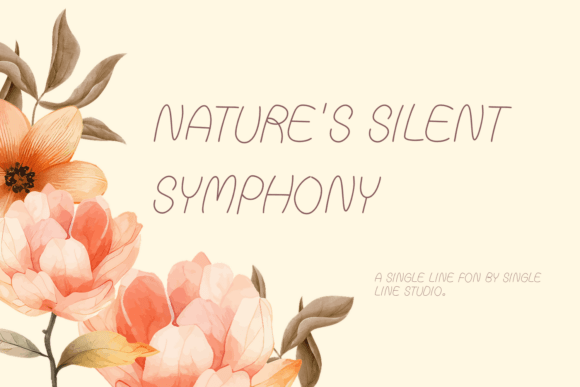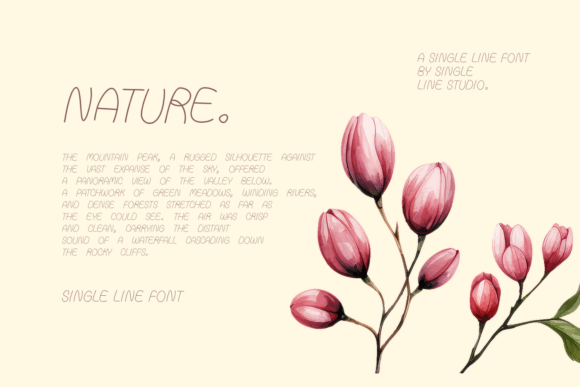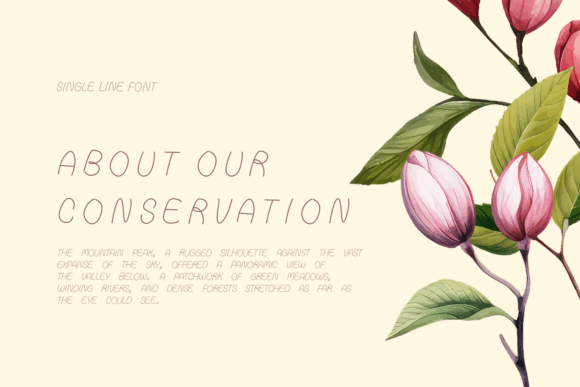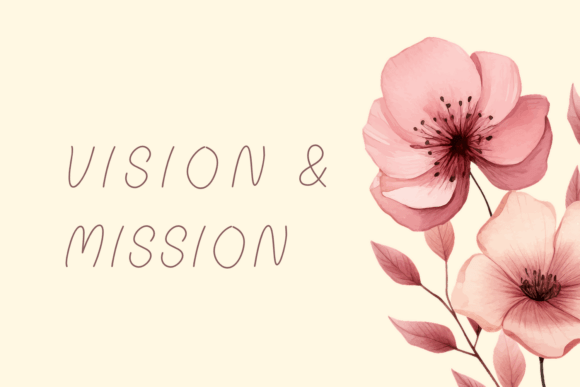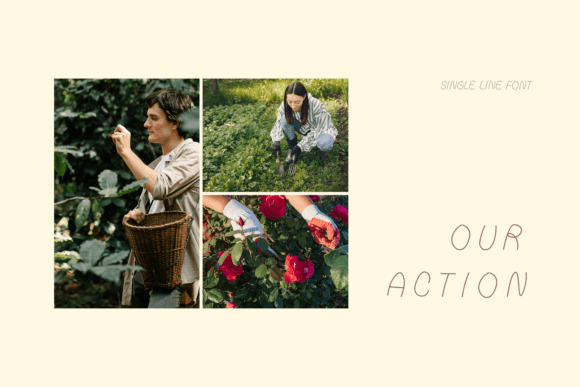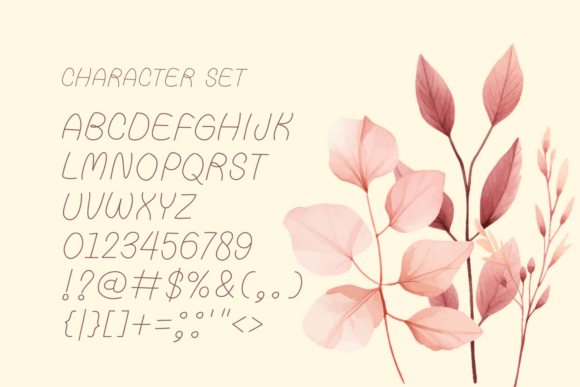
Falsify Font: Embodying Simplicity and Playfulness in a Single Stroke
In the world of typography, fonts play a crucial role in conveying messages, expressing emotions, and creating visual identities. For designers, crafters, and creative enthusiasts, finding the perfect font can be a daunting task. However, if you’re looking for a font that embodies simplicity and playfulness in a single stroke, look no further than Falsify Single Line. This font is designed for those who appreciate clean lines and a touch of whimsy, making it perfect for a variety of creative projects.
The Essence of Falsify Single Line
Falsify Single Line is a font that boasts a minimalist single-line design, offering a unique and modern aesthetic. The font’s simplicity is its greatest strength, allowing it to adapt to various design contexts while maintaining its distinctive charm. The single-line design gives Falsify Single Line a delicate and airy feel, making it an excellent choice for projects that require a touch of elegance and sophistication.
Key Features of Falsify Single Line
- Minimalist Design: Falsify Single Line features a clean and minimalist design, making it perfect for designers who appreciate simplicity and elegance.
- Single-Line Stroke: The font’s single-line stroke gives it a unique and modern aesthetic, setting it apart from other fonts.
- Playful Touch: Despite its simplicity, Falsify Single Line has a playful touch that adds a dash of whimsy to any design.
- Versatility: The font is versatile and can be used for a variety of creative projects, from branding and advertising to packaging and digital design.
Use Cases for Falsify Single Line
Falsify Single Line is an incredibly versatile font that can be used for a wide range of creative projects. Here are some use cases where this font truly shines:
- Branding and Logo Design: The font’s simplicity and elegance make it an excellent choice for branding and logo design.
- Digital Design: Falsify Single Line is perfect for digital design projects, such as website headers, social media graphics, and mobile app interfaces.
- Packaging Design: The font’s playful touch and minimalist design make it an excellent choice for packaging design, particularly for products that require a modern and sophisticated look.
- Advertising and Marketing: Falsify Single Line can be used in advertising and marketing materials, such as billboards, flyers, and brochures, to add a touch of elegance and sophistication.
Tips for Using Falsify Single Line
Falsify Single Line is a font that embodies simplicity and playfulness in a single stroke. Its minimalist design, single-line stroke, and playful touch make it an excellent choice for a variety of creative projects. Whether you’re a designer, crafter, or creative enthusiast, Falsify Single Line is a font that’s sure to inspire and elevate your designs. With its versatility, elegance, and whimsy, Falsify Single Line is a font that’s here to stay.